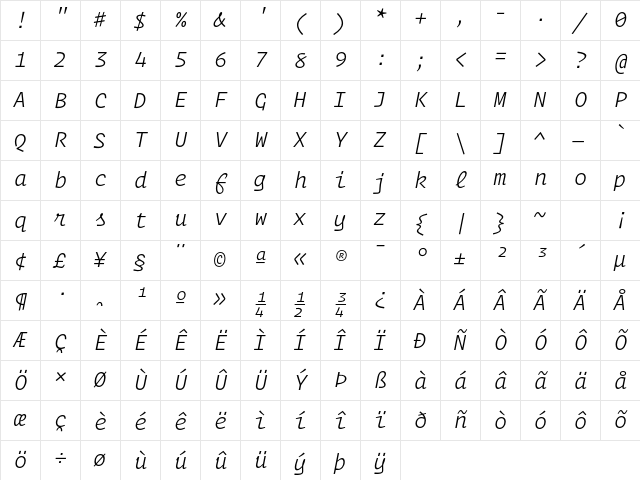
Complete Operator Mono Light Italic glyph index. Displaying only characters natively supported by Operator Mono Light Italic font.
Operator Mono uses fixed-width spacing throughout, giving it the structured, systematic character associated with coding environments and technical documentation. The slanted form adds forward momentum and visual energy. Its slender proportions lend an understated elegance to any composition.